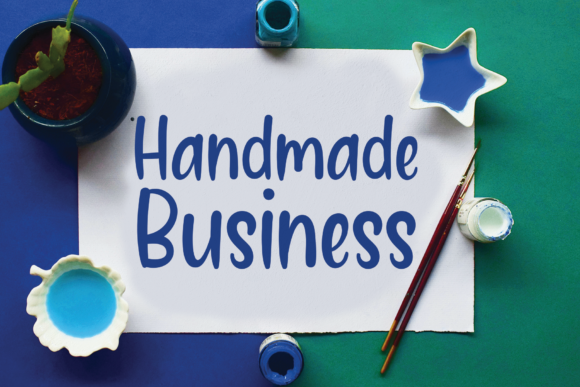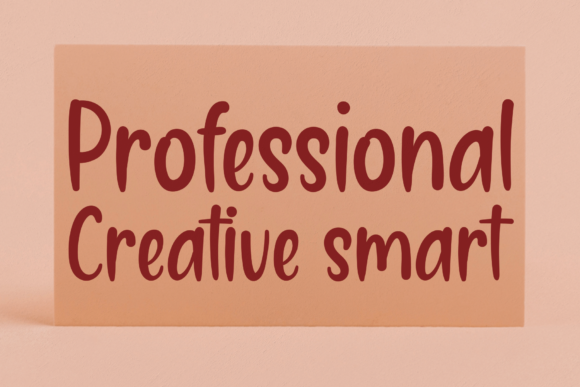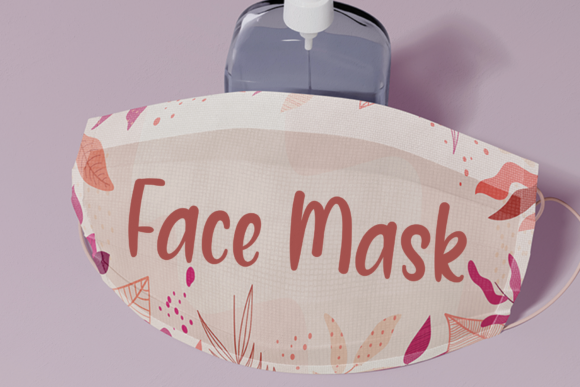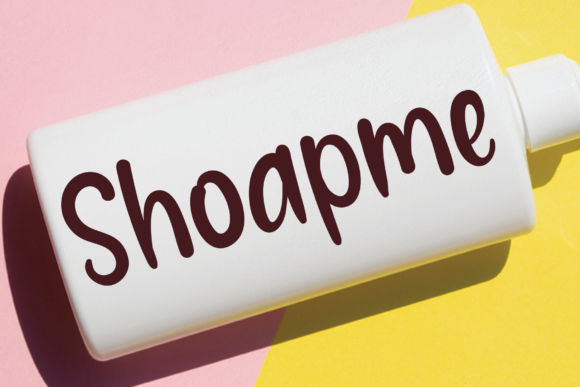
Introduction to Christmas Snowfall Font
Christmas Snowfall is a cute and casual handwritten font.
It has a natural and trendy style and it is ideal for a wide range of designs .
Key Features of Christmas Snowfall Font